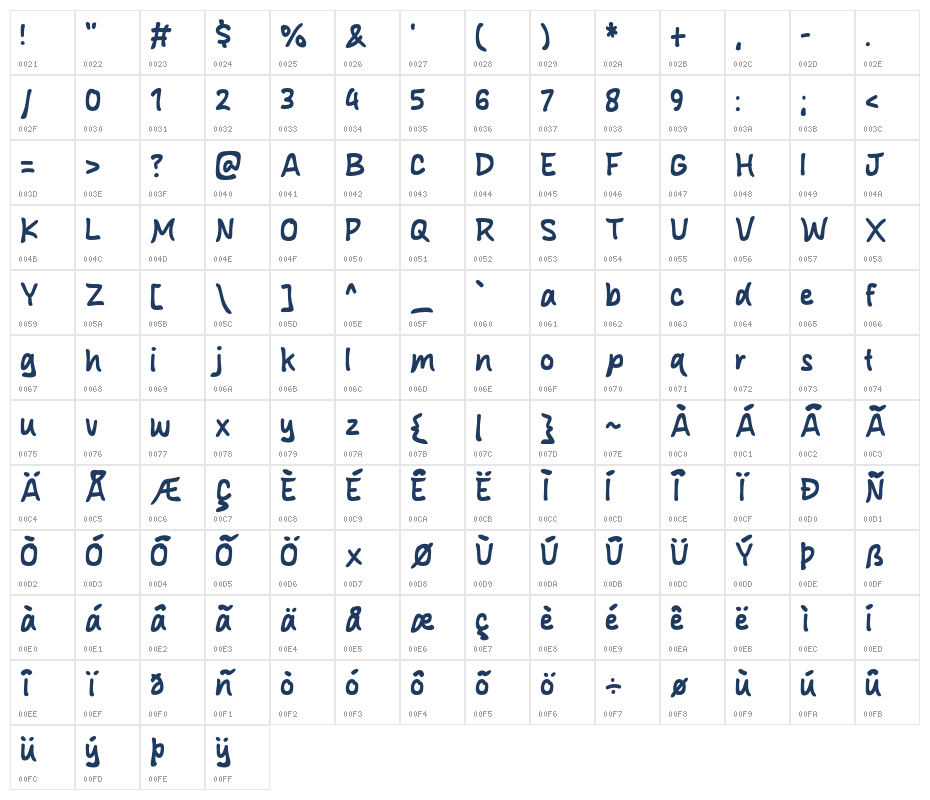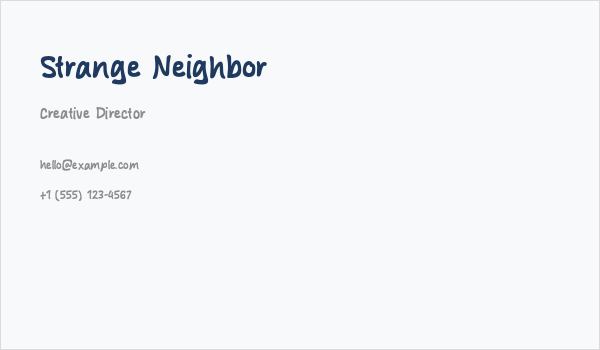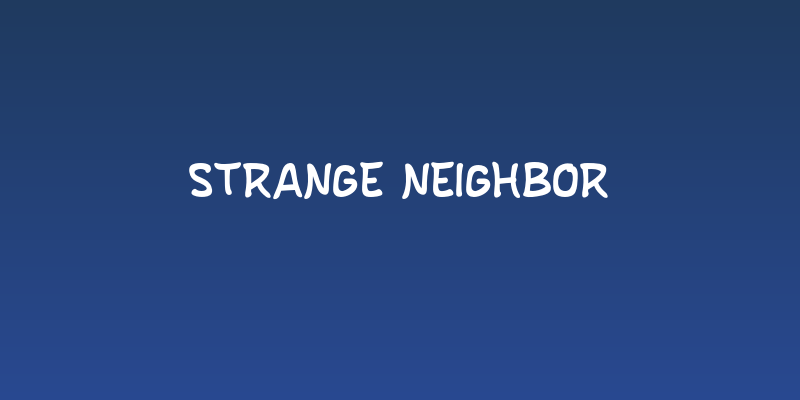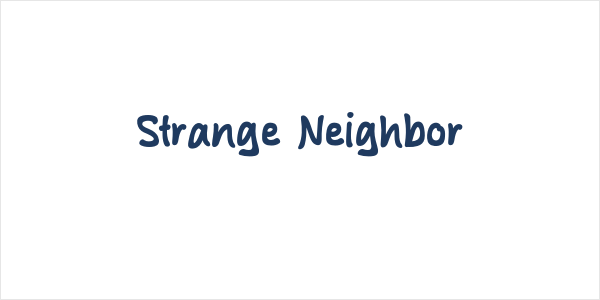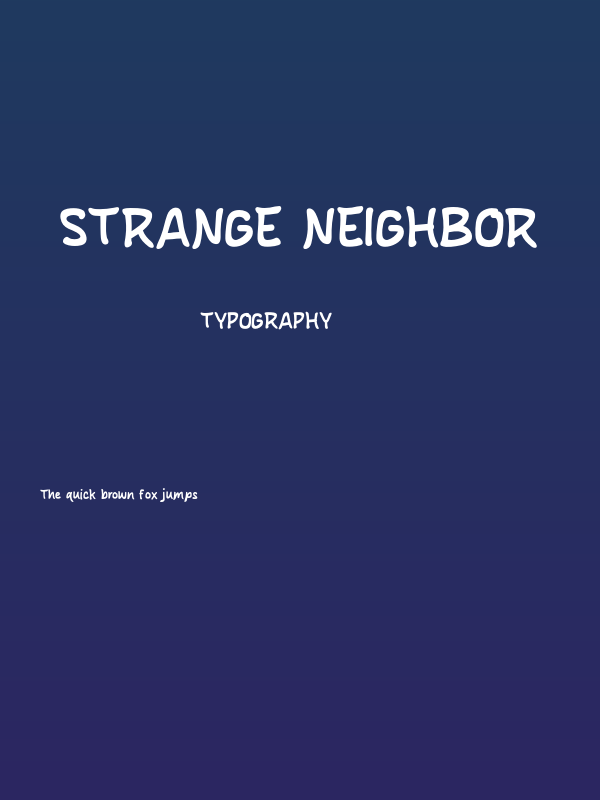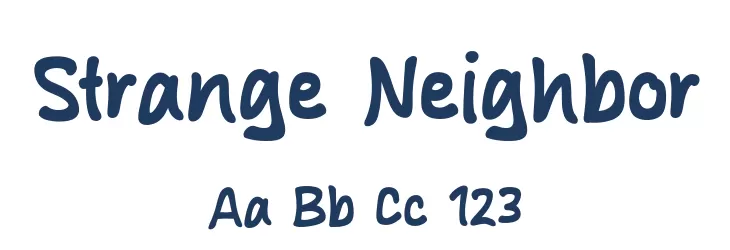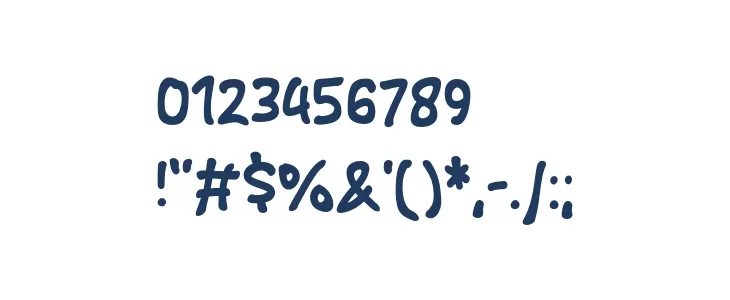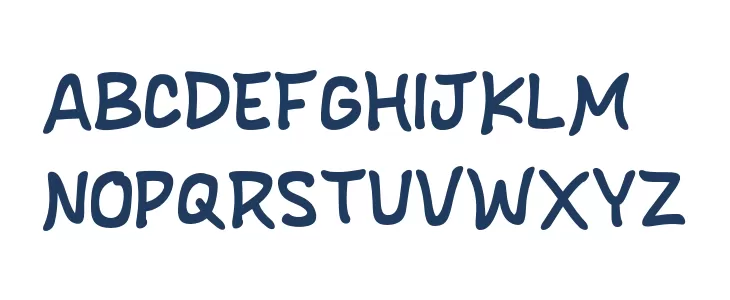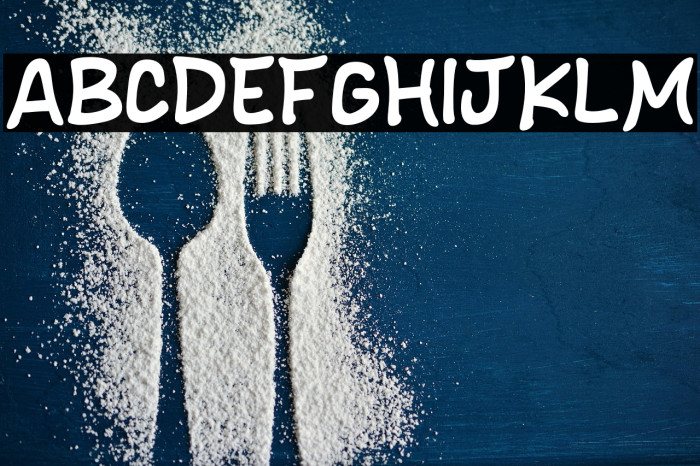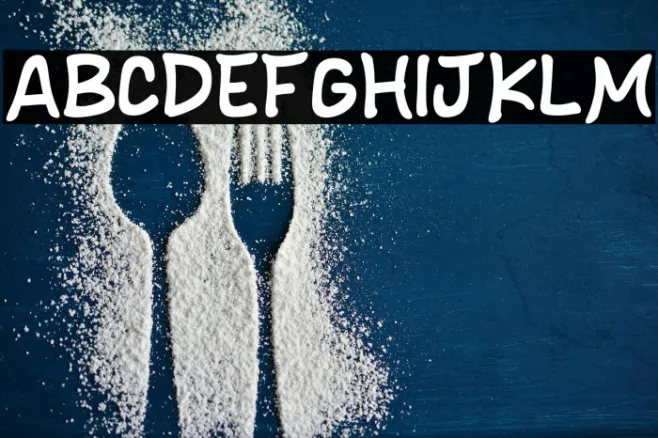
Strange Neighbor Font
Strange Neighbor Description
A playful, handwritten style font with rounded, casual letterforms.
| Overall Style | Casual, Playful, Friendly |